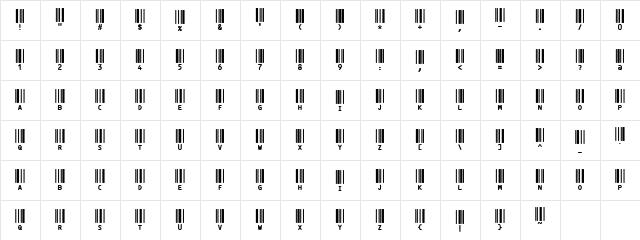
CODE3X Regular
Design Context for CODE3X Typeface
CODE3X brings the precise, column-aligned rhythm of monospaced typography to designs that value technical clarity and systematic order.
A natural fit for code editors, technical documentation, developer-focused branding, and terminal-inspired UI.